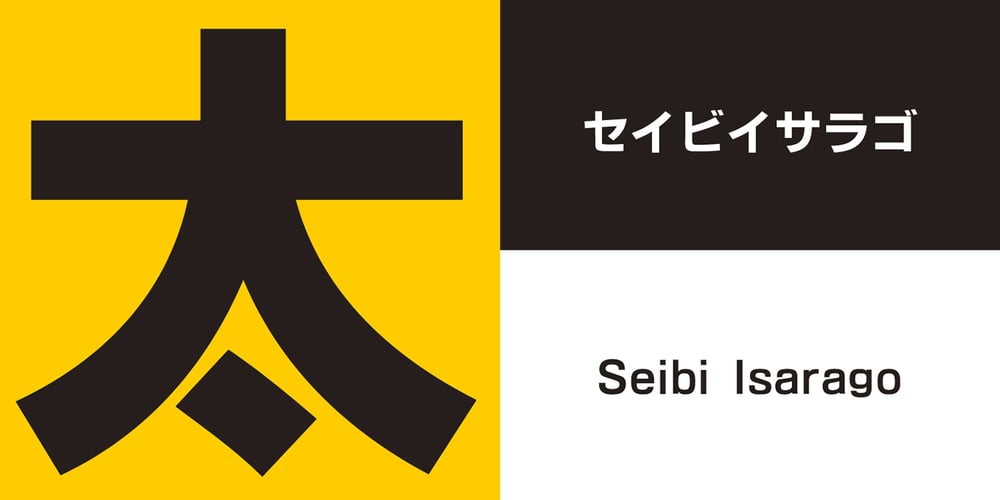
Seibi Isarago Font Family was designed by published by Nihon Literal. Seibi Isarago contains 3 styles and family package options. Gothic in a contemporary style designed with a broad skeleton. Considering line alignment, we have aimed for a sense of harmony in both vertical and horizontal typesetting. フトコロ(画と画の間の空間)を広くデザインした現代的感覚のゴシック体。組み版時のライン揃えを考慮し、タテ組ヨコ組で違和感のない書体を目指しました。木版時代から手書きレタリングへと引き継がれてきた精美堂ゴシック体をデジタルフォントで再現。手書き文字を組んだ印象はそのままに、フトコロを広く現代風にアレンジしました。遠くからでも近くからでも読みやすい、目を引く見出し用ゴシックです。